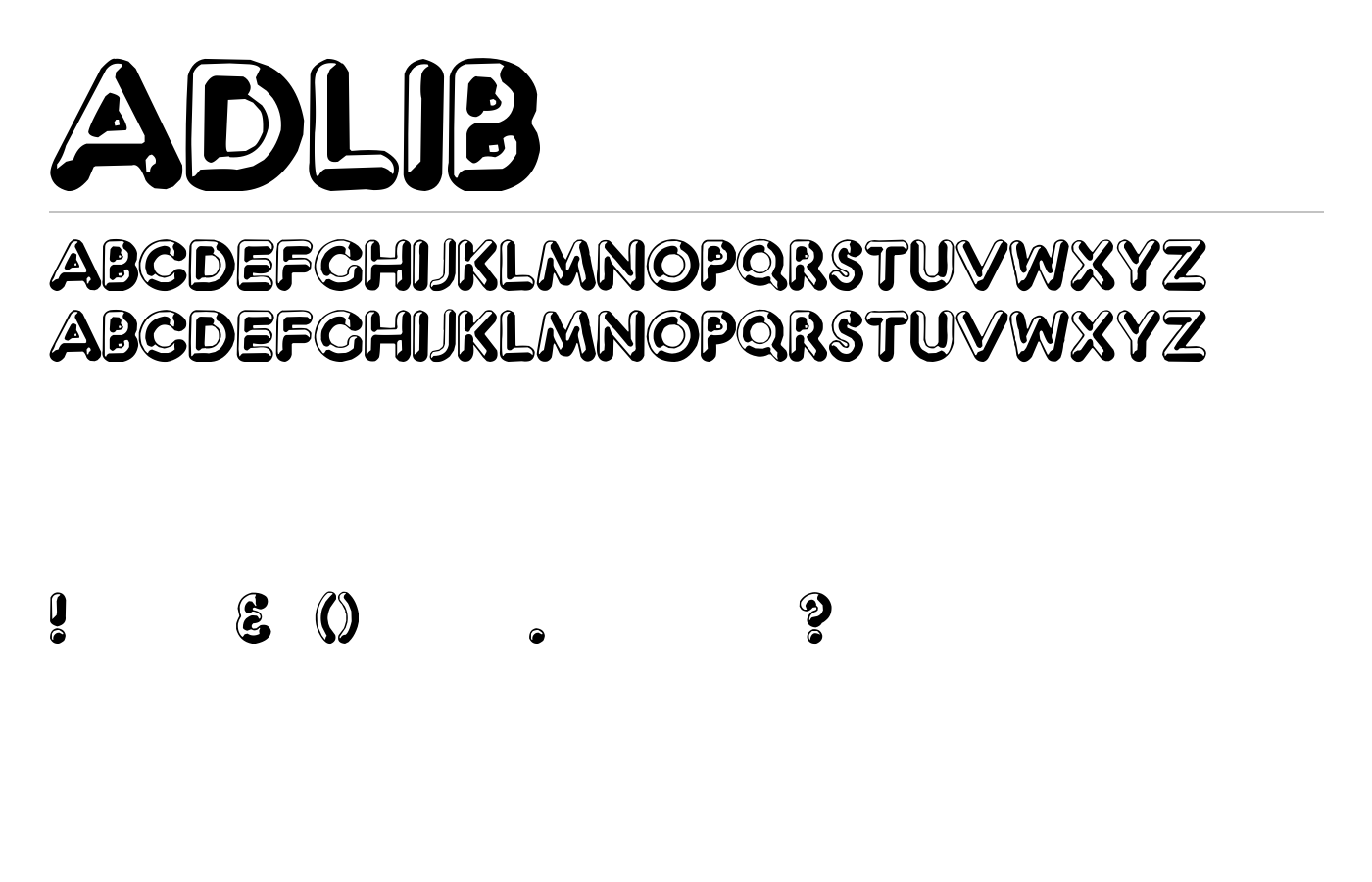
Captain Shiner is a bold and playful display font with a chunky, rounded sans serif style that features an eye-catching 3D shadow effect. Its thick strokes and lively character shapes give off a fun, informal vibe perfect for attention-grabbing headlines, posters, and branding projects that want to convey energy and creativity. This font works well in youthful, quirky designs where a strong, graphic presence is needed to make a memorable impact.
Captain Shiner Font
About Captain Shiner Font
| Font family | Captain Shiner Font |